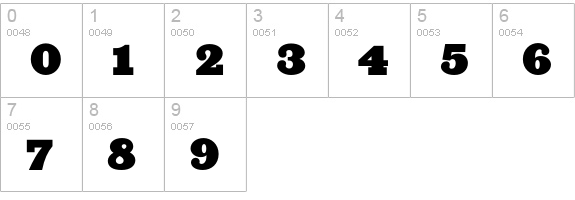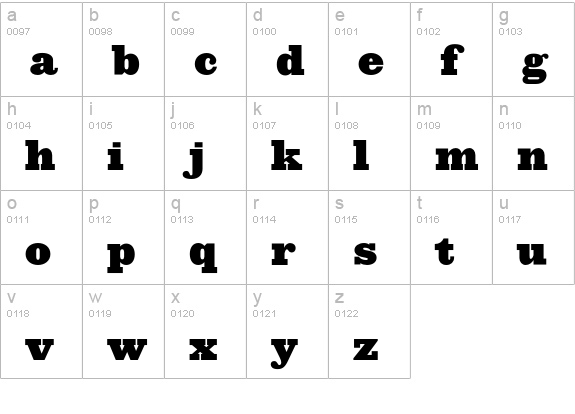
Ziggurat-HTF-Black is a maximum-weight, dramatic variant in the Ziggurat typeface family \xE2\x80\x94 well suited to maximum-impact headlines, posters, and packaging.